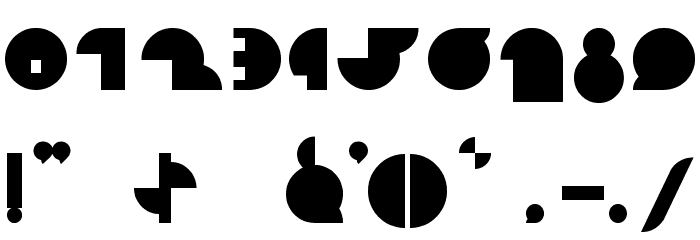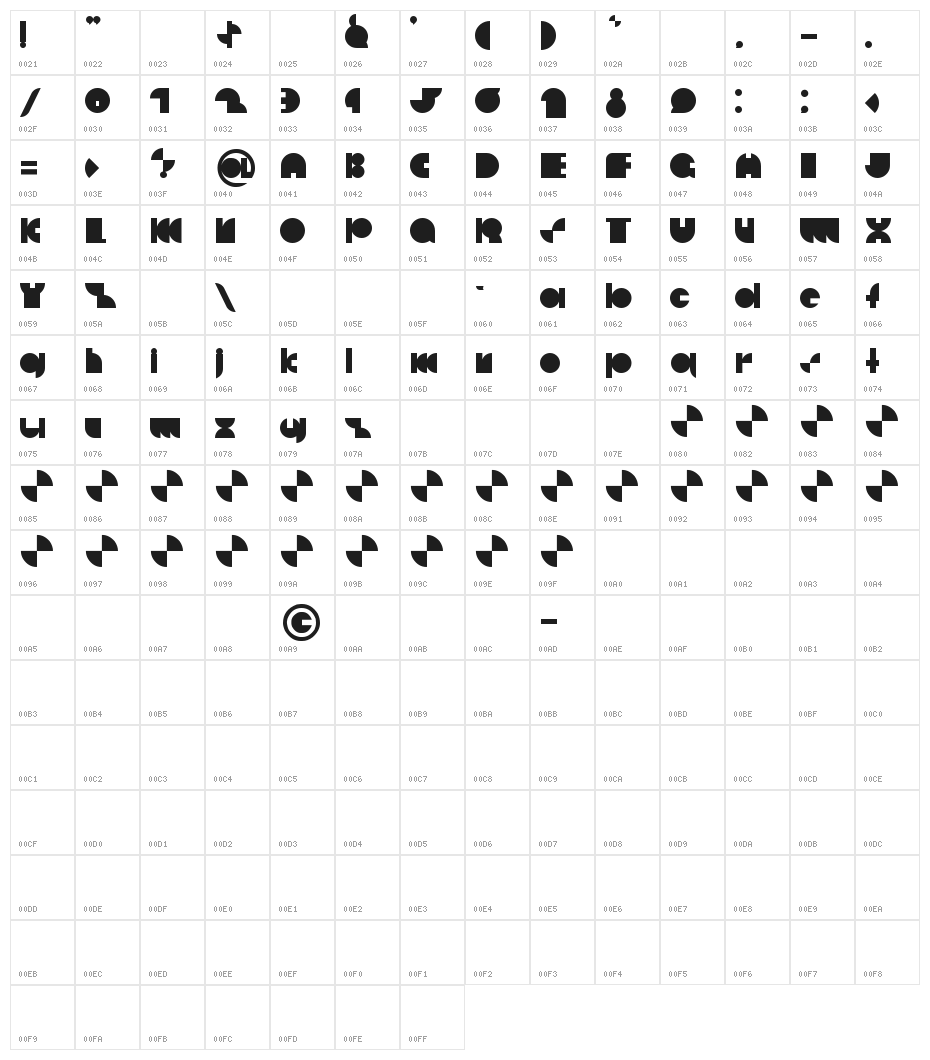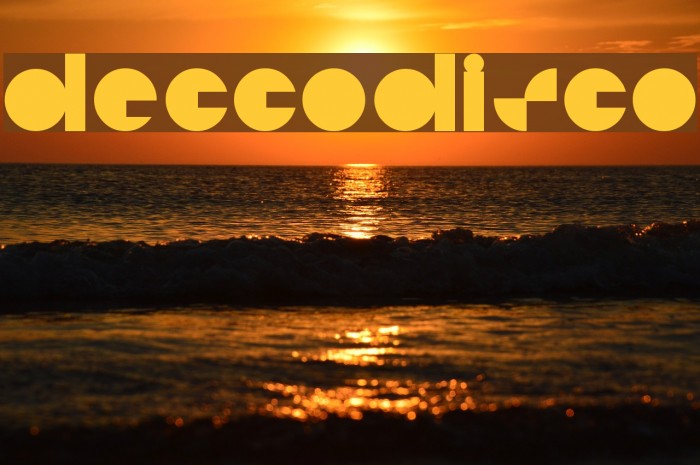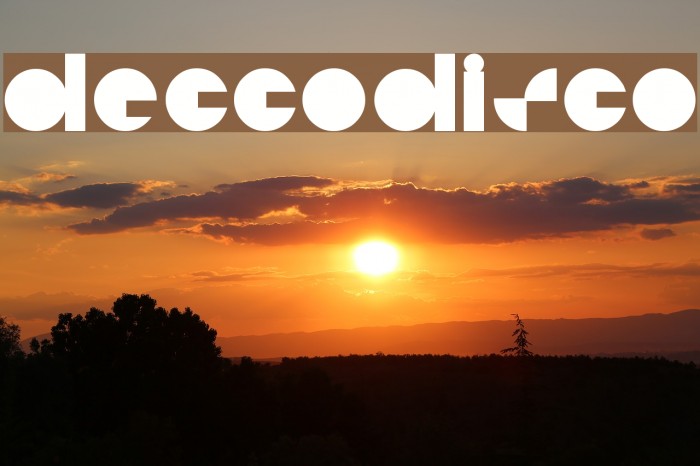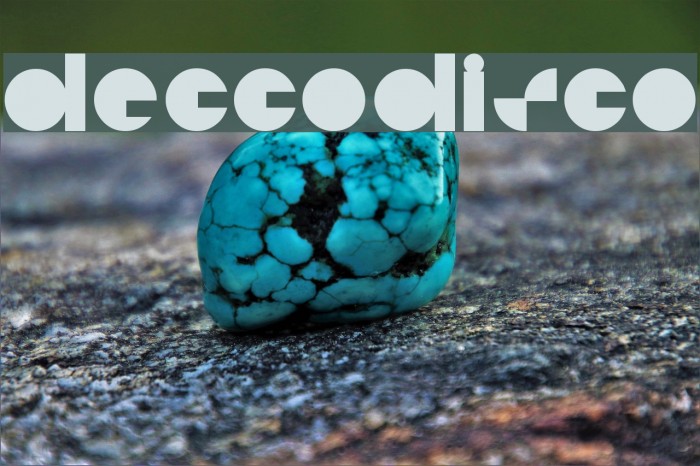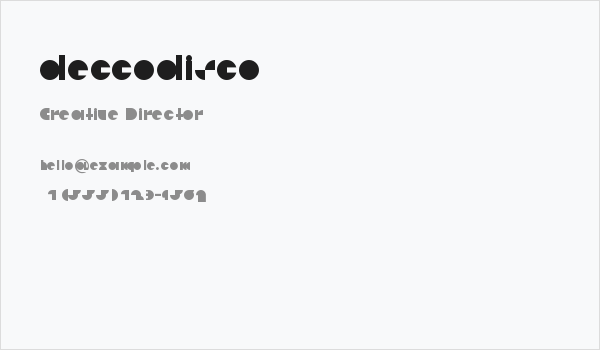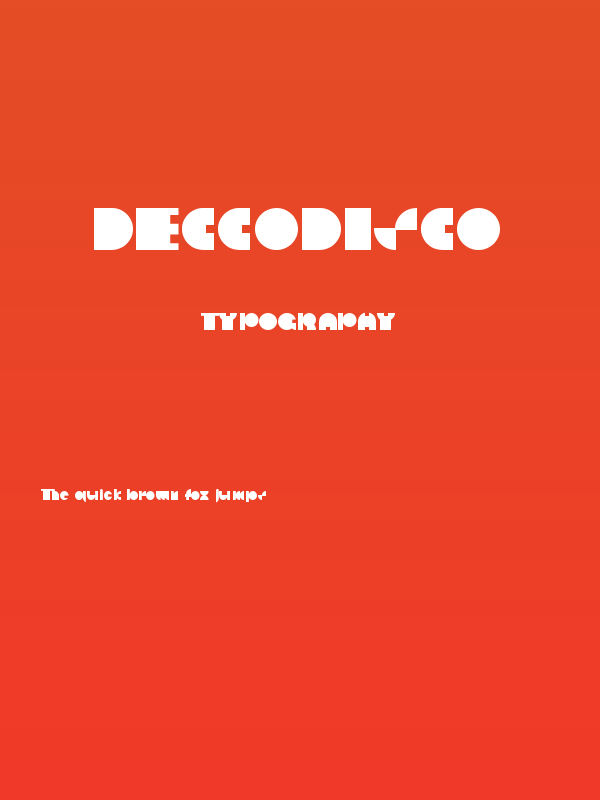
deccodisco Font
deccodisco Description
This font features a bold, geometric design with a distinct retro-futuristic vibe. The characters are constructed using solid shapes, creating a strong visual impact. The uppercase letters are particularly striking, with a blocky, almost stencil-like appearance. The lowercase letters maintain the geometric theme, offering a cohesive look across the typeface. Numbers and special characters are equally bold, ensuring consistency throughout. This font is ideal for projects that require a standout, modern aesthetic with a nod to retro design.
| Proposed Projects | Ideal for posters, album covers, branding, and any project needing a bold, modern aesthetic. |